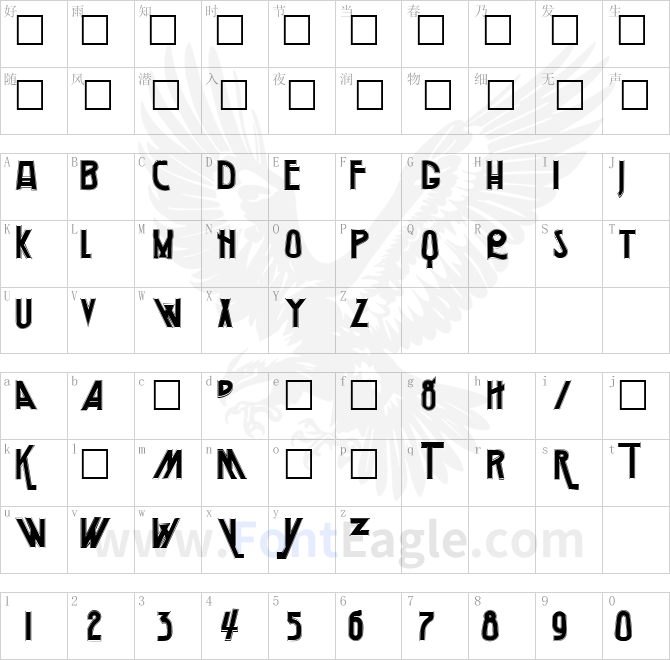
Airkraft- is a great font, widely used in graphic design, single-page menu design, poster design and other fields, and is deeply loved by designers.Airkraft- download.